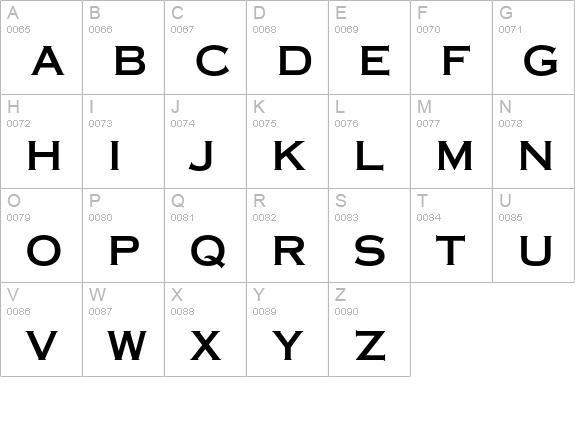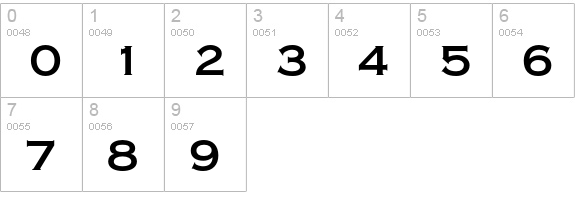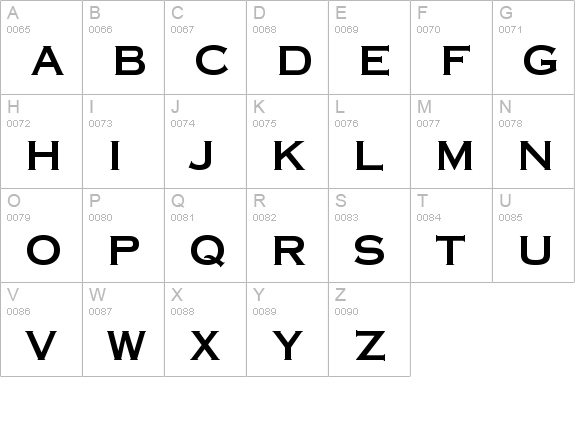
Copperplate Gothic Thirty-One AB is a timeless and elegant font that exudes sophistication and class. With its sleek and structured design, this font is perfect for adding a touch of refinement to any project. The sharp serifs and clean lines give Copperplate Gothic Thirty-One AB a modern yet classic appearance that is sure to make a statement. What sets this font apart is that it is not only stylish and versatile but also completely free to download. You can easily access Copperplate Gothic Thirty-One AB at FontsMarket.com, making it a convenient choice for designers and creatives looking for a high-quality font without breaking the bank. Whether you're designing a logo, creating invitations, or working on a branding project, Copperplate Gothic Thirty-One AB is a fantastic choice that will elevate your work to the next level. Download this exquisite font today and unleash your creativity with its timeless appeal.